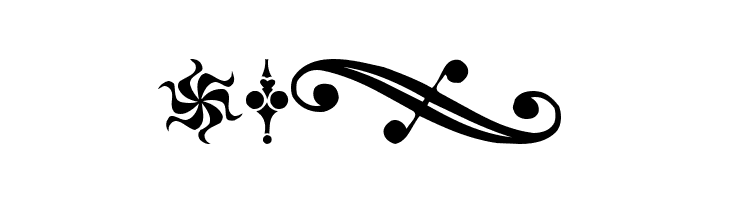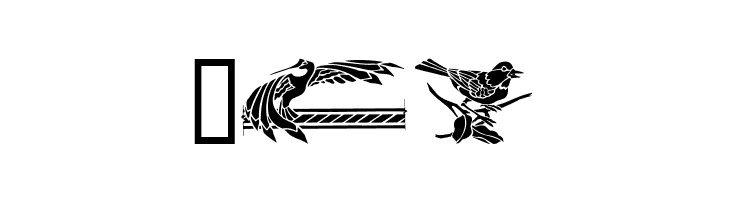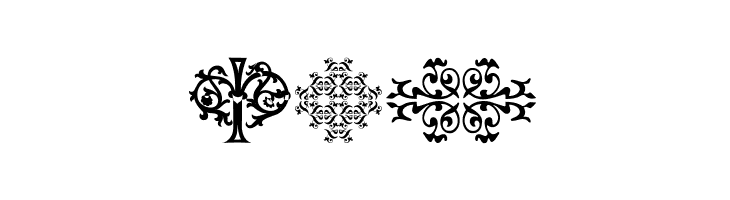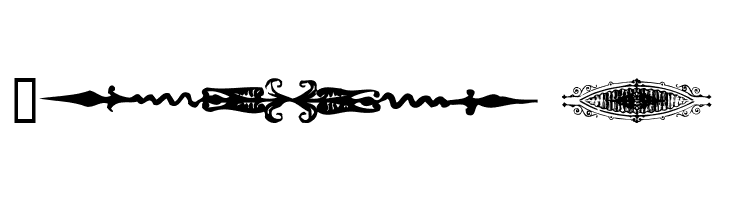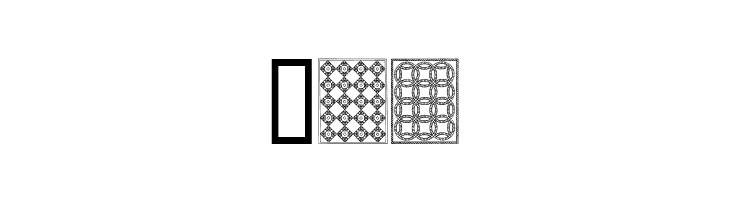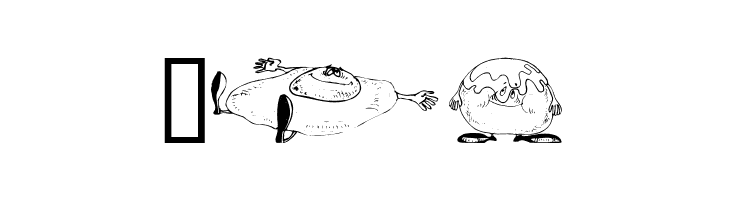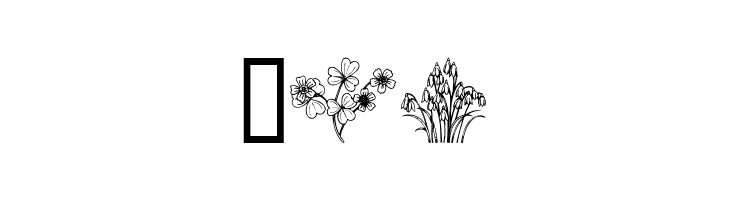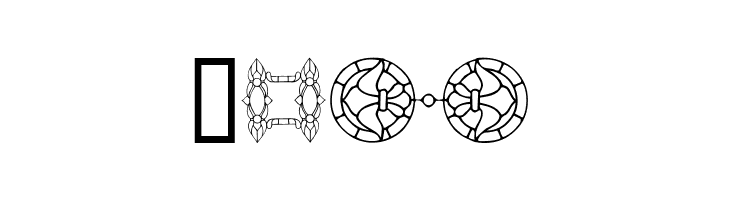
Ornamental dingbat font with flourishes and decorative motifs.
Ornamental dingbat font with bird and nature stencil designs.
Ornamental medieval-style decorative glyph set.
Ornamental divider glyphs with intricate, symmetrical designs.
An ornate and decorative font with intricate floral and mythical designs.
A bold, decorative font inspired by quilt patterns with geometric, outlined letters.
A decorative font with ornate and celestial-themed glyphs.
A whimsical font with characters as cartoonish food items.
Botanical dingbat font with wildflower illustrations.
Victorian-inspired design with bold rectangular shapes and ornate decorative elements.